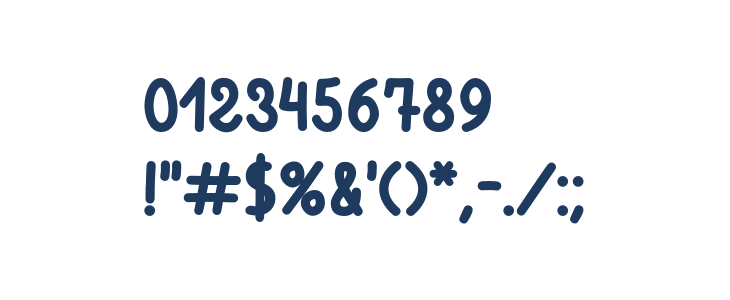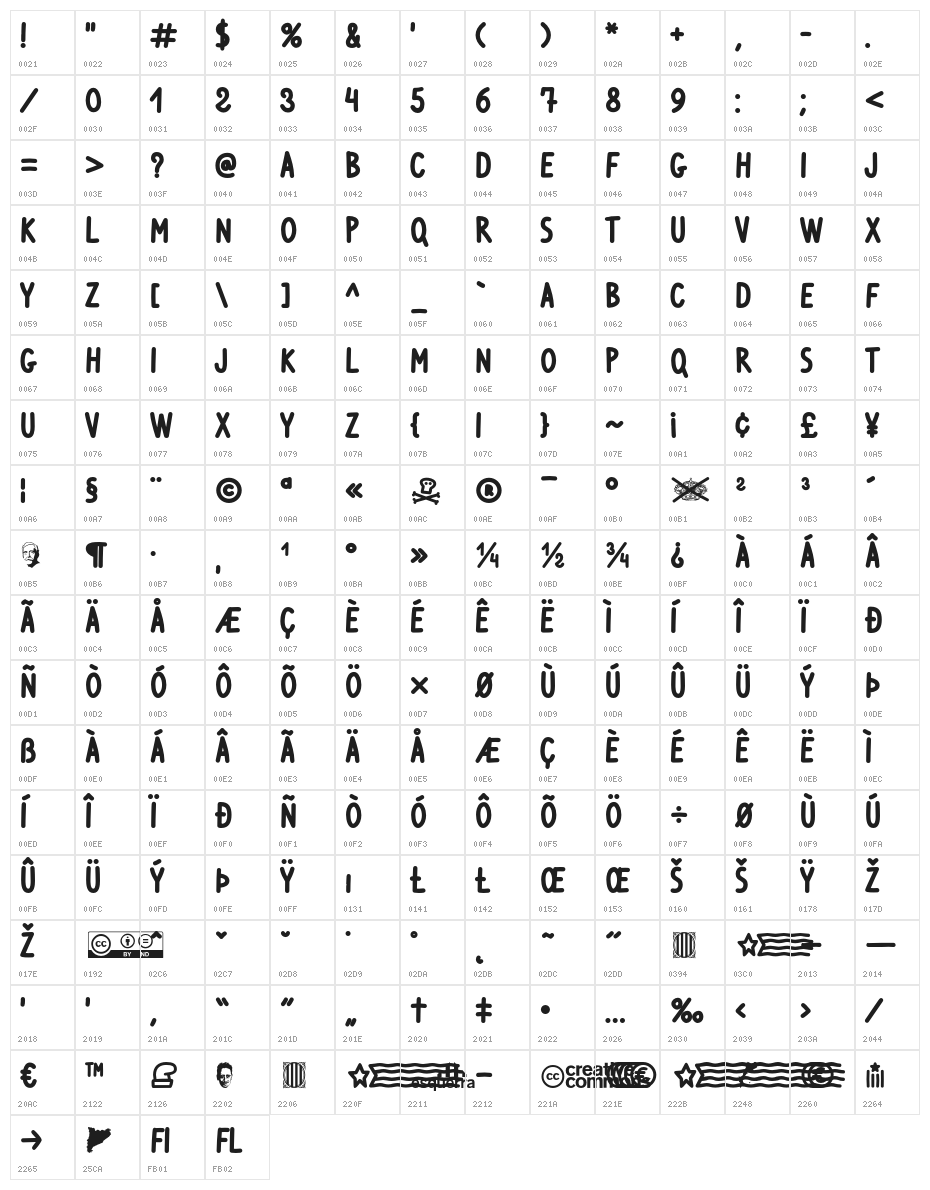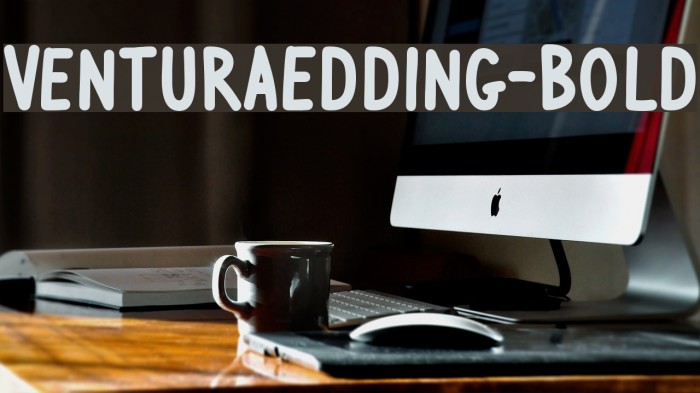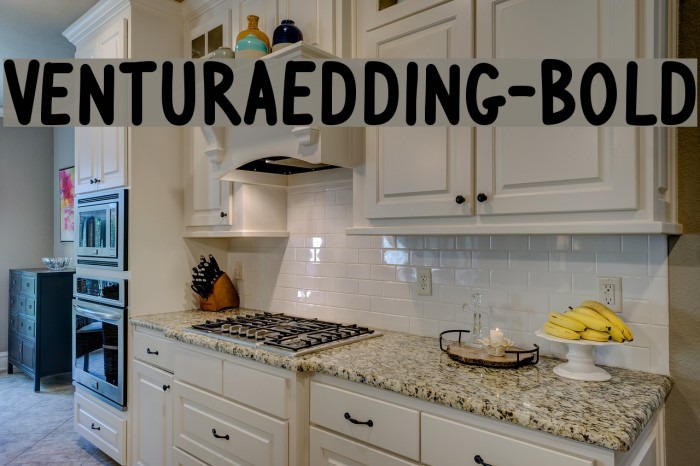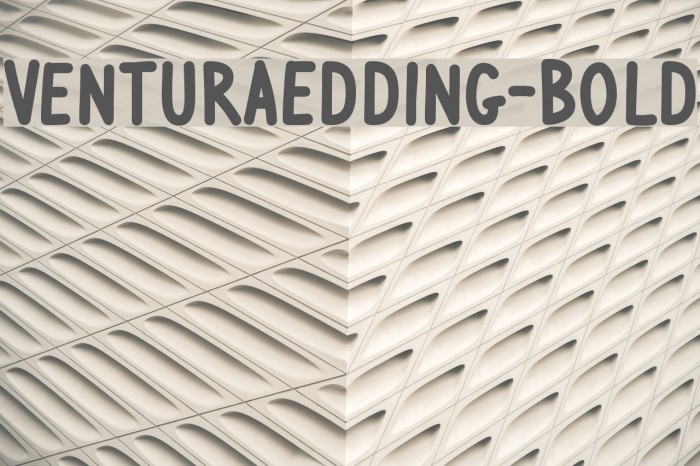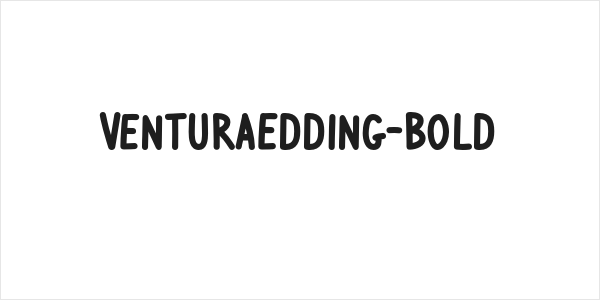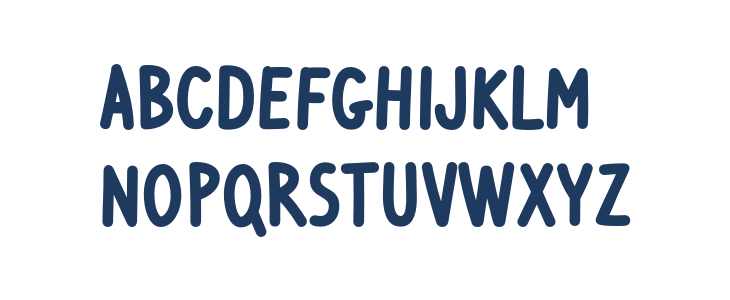
VenturaEdding-Bold Font
VenturaEdding-Bold Description
This font features a bold, playful style with rounded edges and a hand-drawn appearance. The letters are thick and uniform, giving a sense of friendliness and approachability. The characters are slightly condensed, which adds to the compact and cohesive look. The numbers and special characters maintain the same playful and bold characteristics, ensuring consistency throughout. This font is ideal for projects that require a fun and informal touch, such as children's books, playful branding, or creative posters.
Overall StylePlayful
Proposed ProjectsIdeal for children's books, playful branding, creative posters, and informal designs.